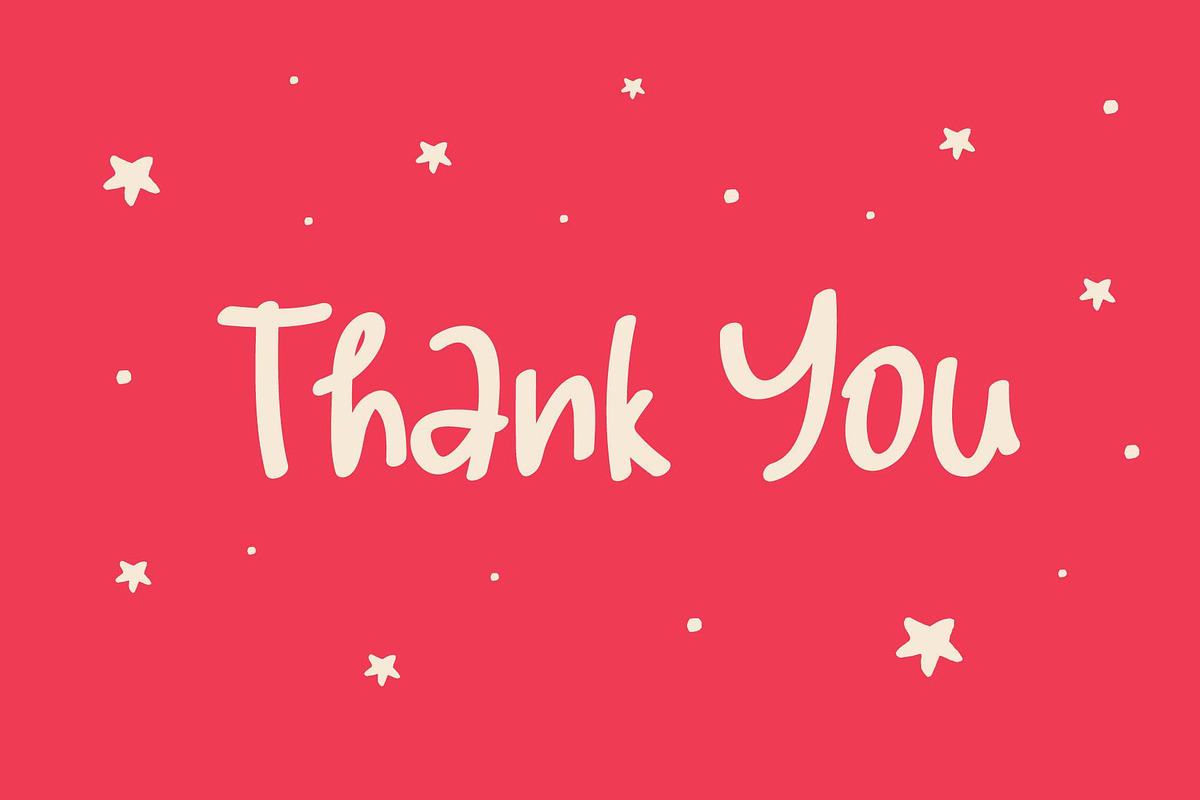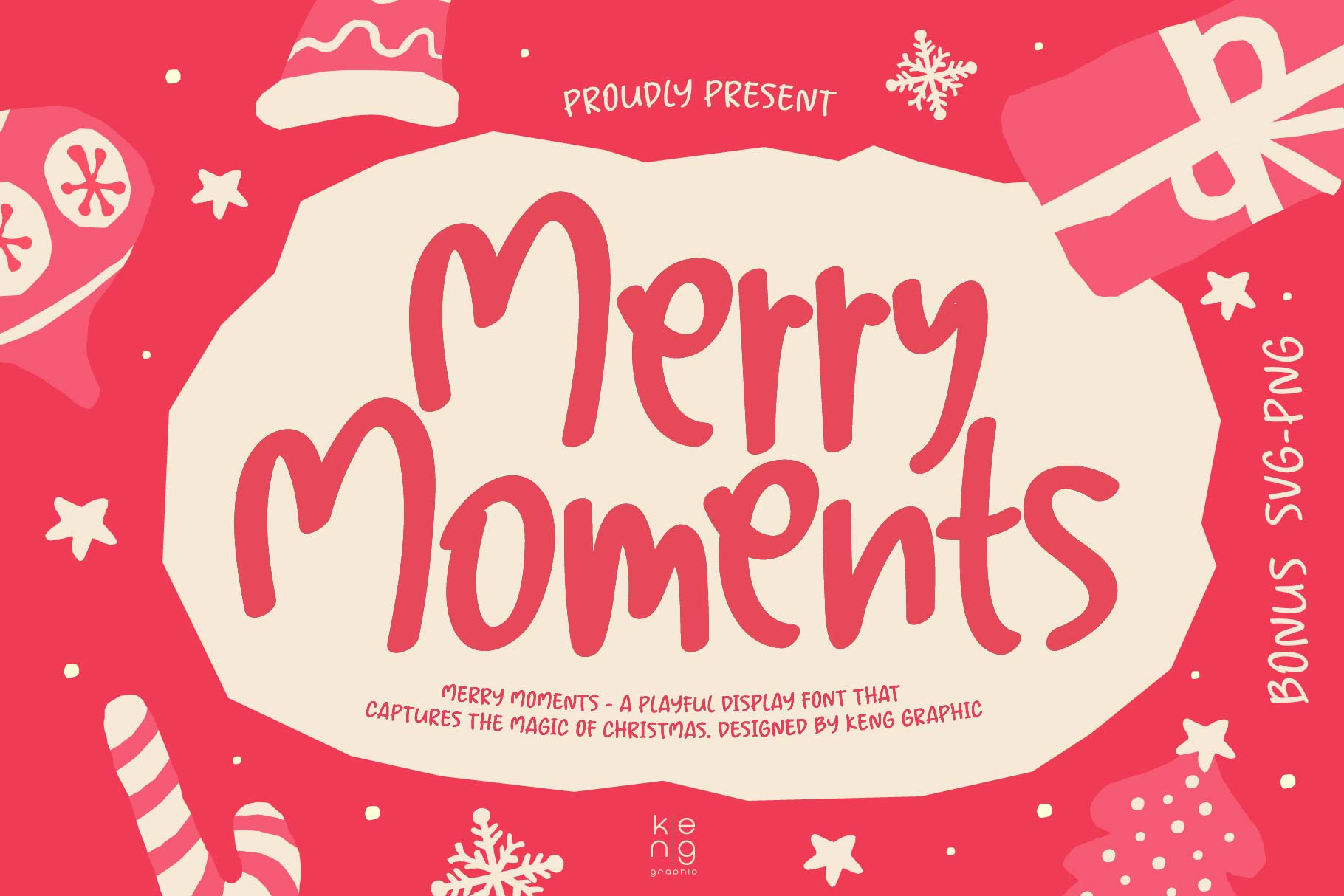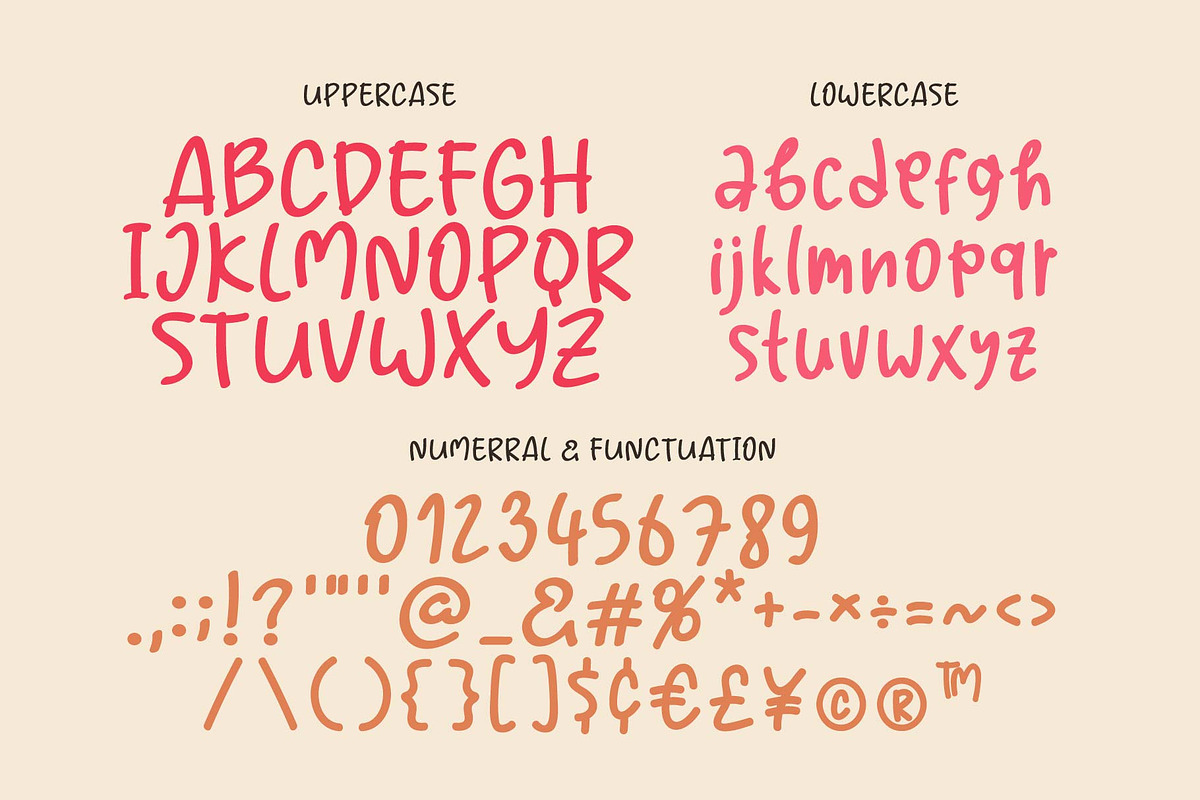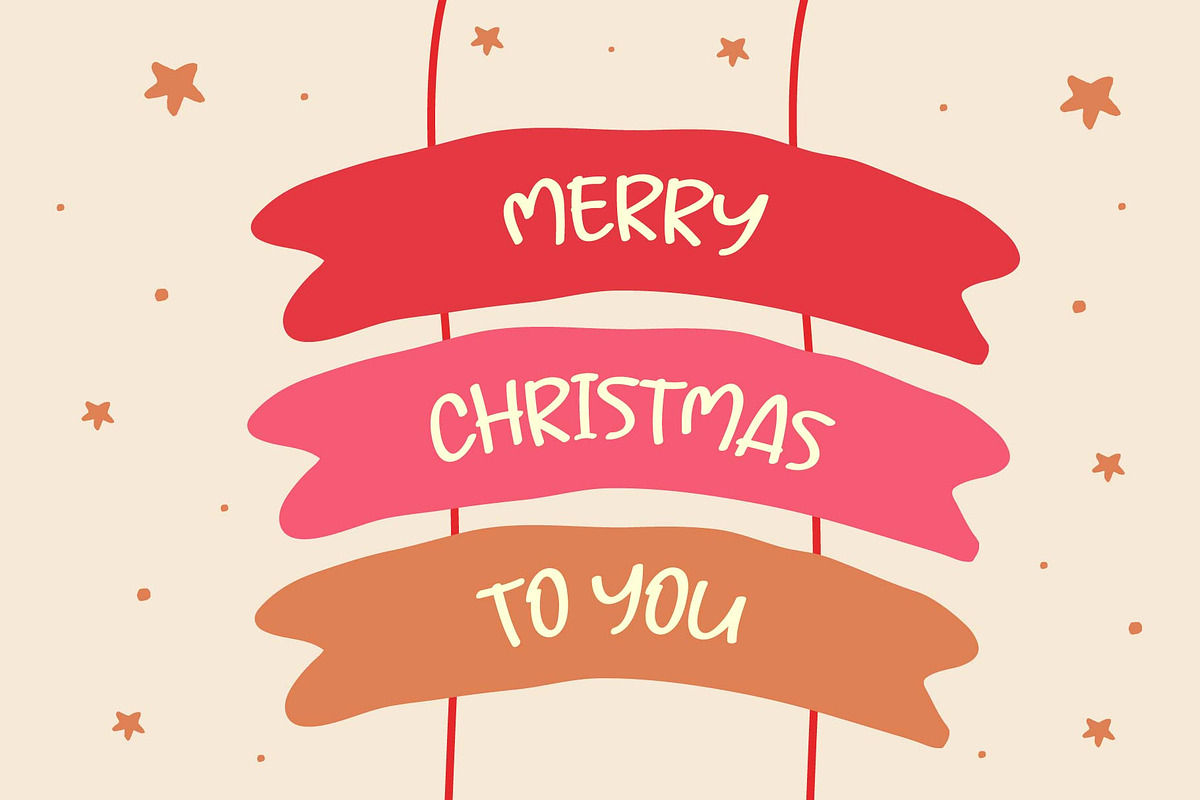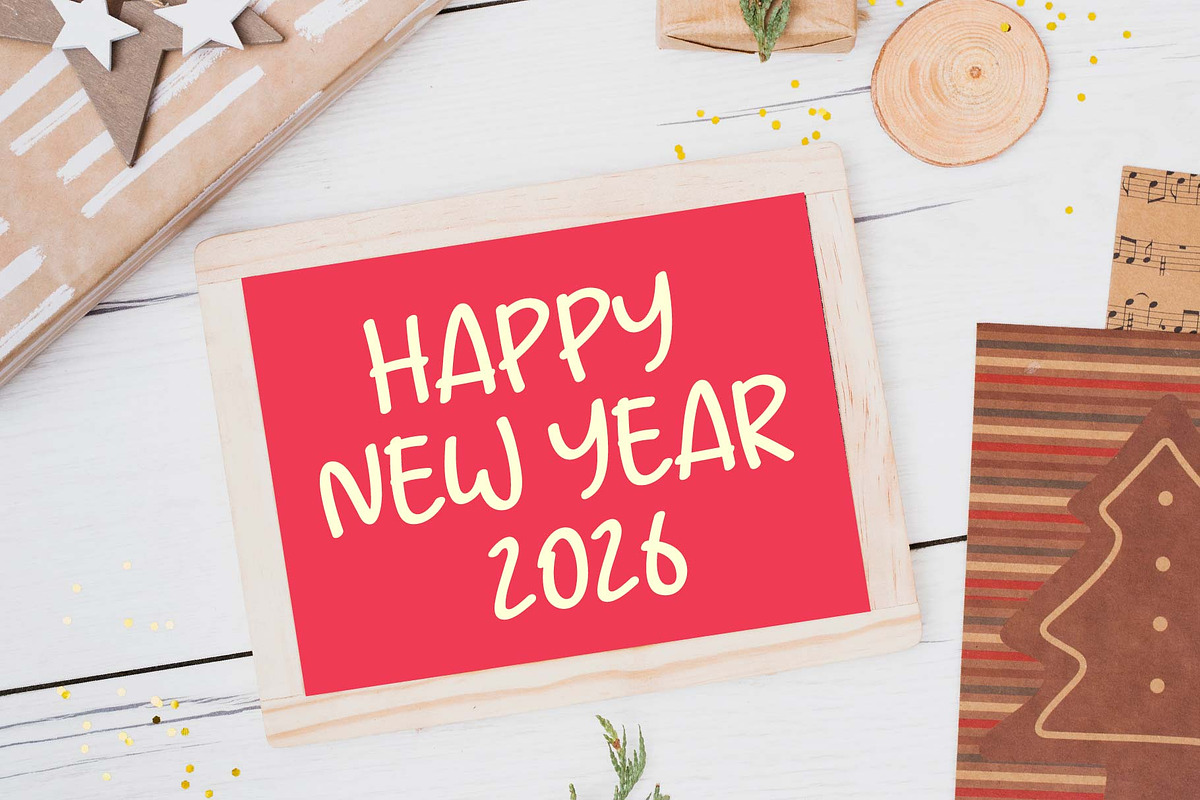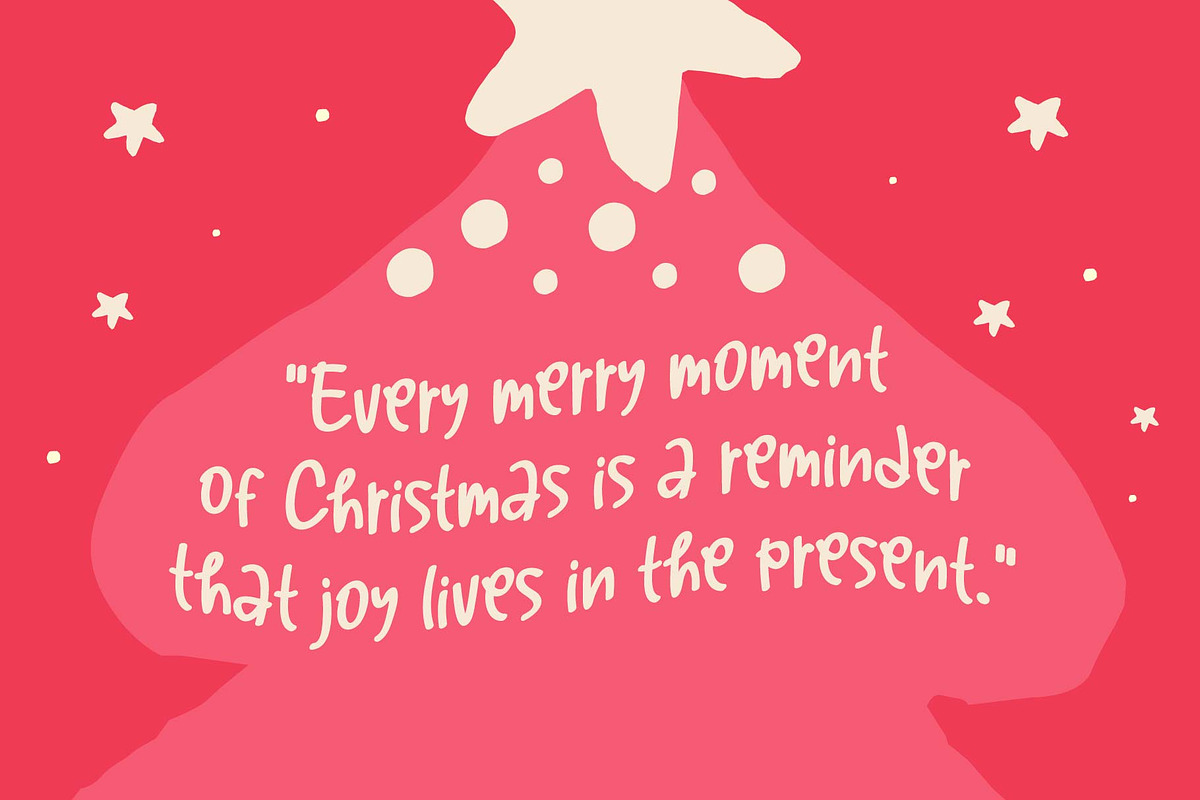
Merry Moments Font
Behold the vivacious charm of Merry Moments, a font that infuses your designs with a touch of whimsical enchantment. This playful font breathes personality and vigour into your creative masterpieces, ensuring they are not just visually delightful but dance with a life of their own. Immerse yourself in the blissful design journey with Merry Moments, an ideal choice for every creative exploration you undertake. This spritely typeface is at your disposal to adorn your design canvas, encasing every project in a cocoon of lighthearted elegance. With Merry Moments, your creative endeavours don’t just please the eyes, they become vibrant portrayals of your boundless imagination! Include file: OTF, TTF, WOFF,SVG, and PNG ** Merry Moments Font hat can access with some software designs, such as Adobe Photoshop, illustrator, InDesign, Affinity designer, etc. Please check your software can access alternative font and ligature font before purchase.